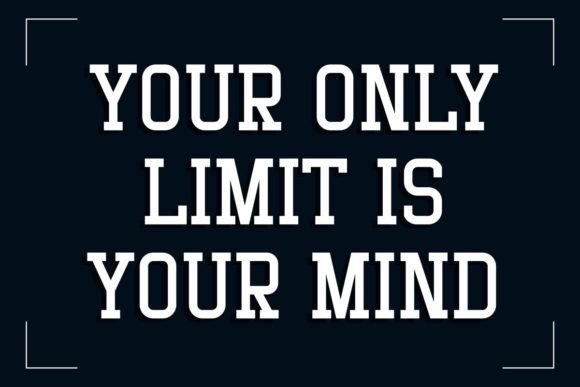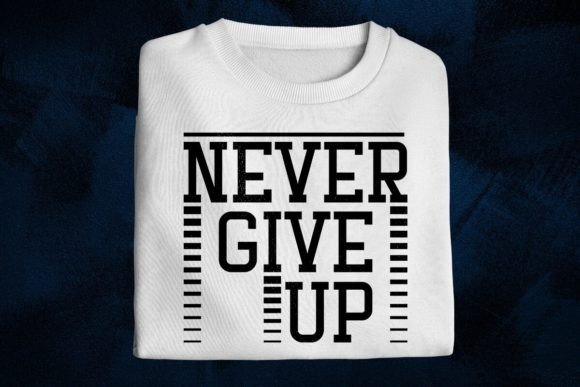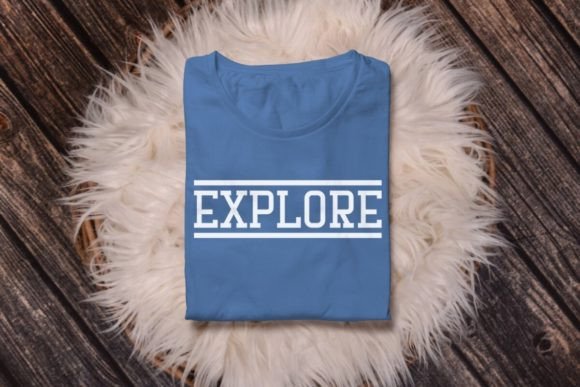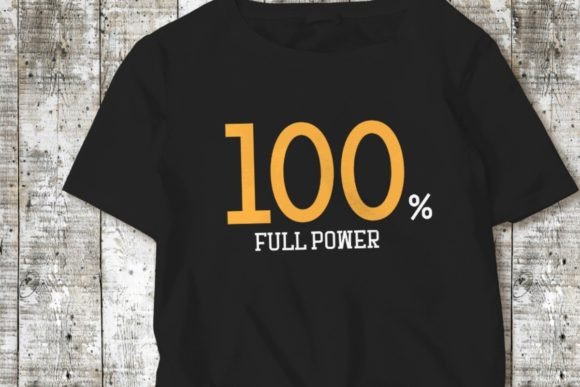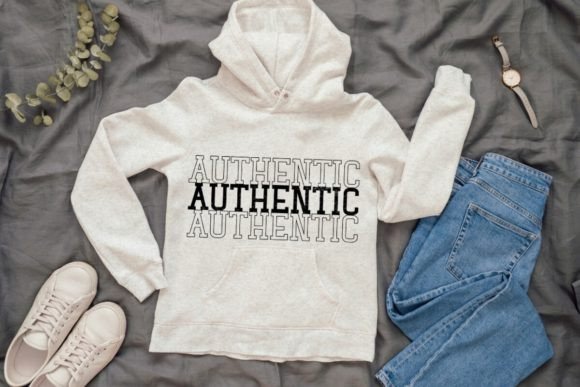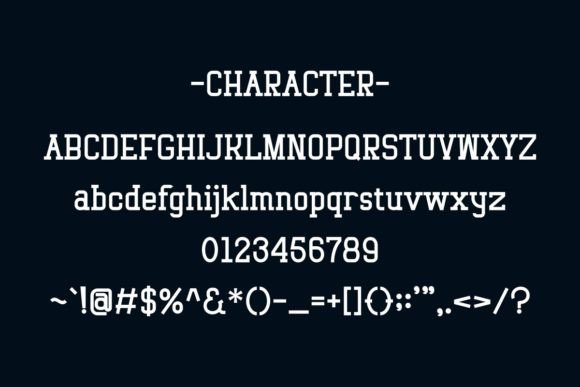
Introduction to Slab Series Font
Slab Series is a modern slab serif typeface exuding authority and authenticity.
With its bold and commanding presence, this font adds a touch of sophistication to any design project Perfect for mockup designs for t-shirts, mugs, and quote posters, โSlab Seriesโ font delivers a sense of confidence and strength, making your message stand out with unwavering clarity.
Key Features of Slab Series Font